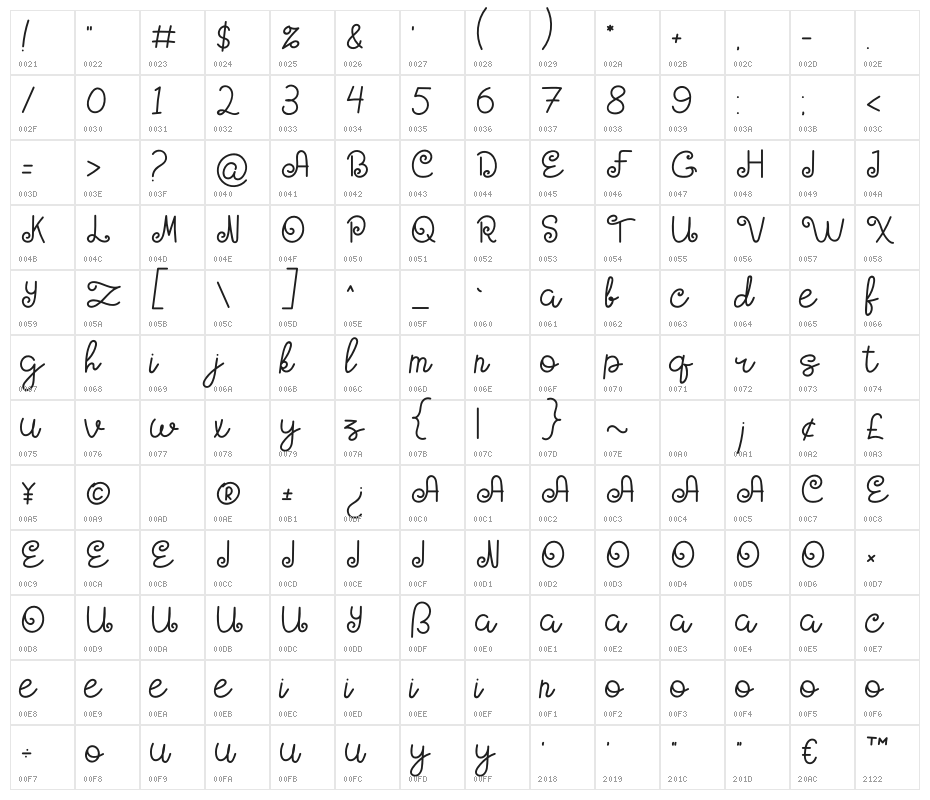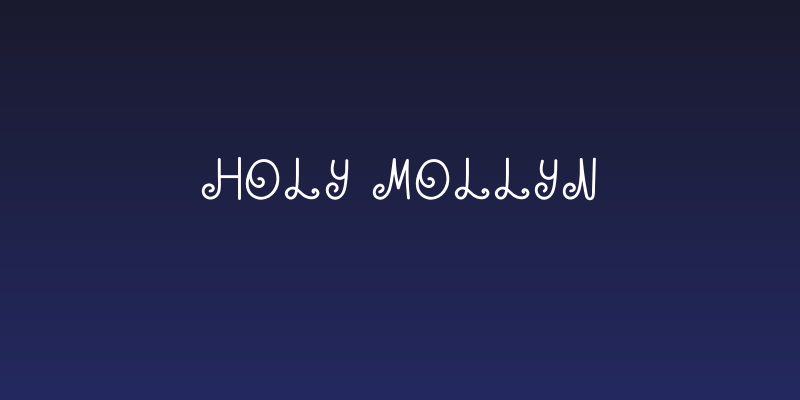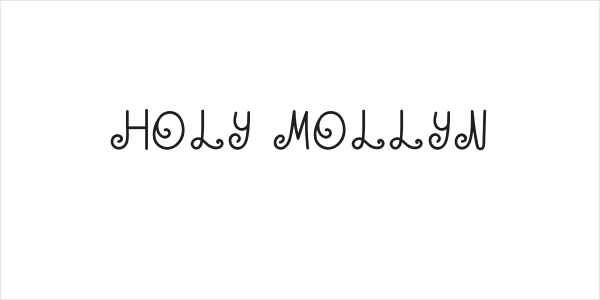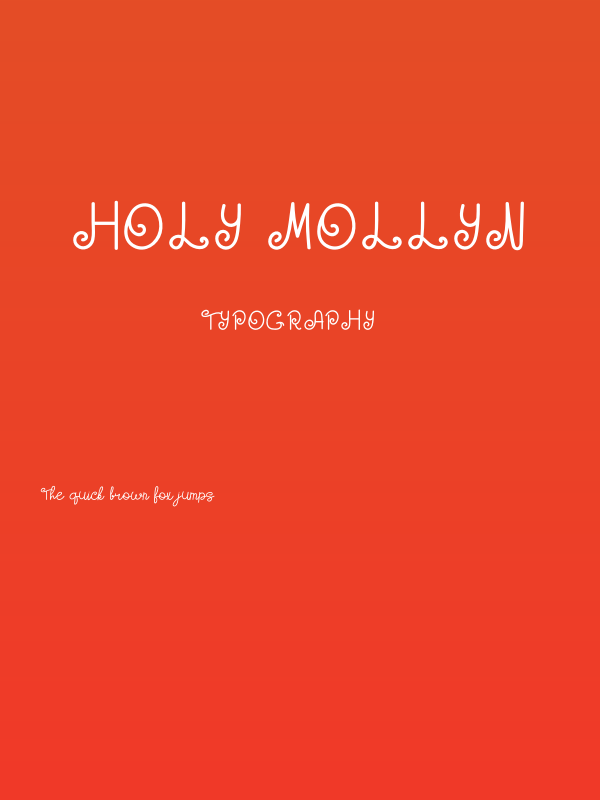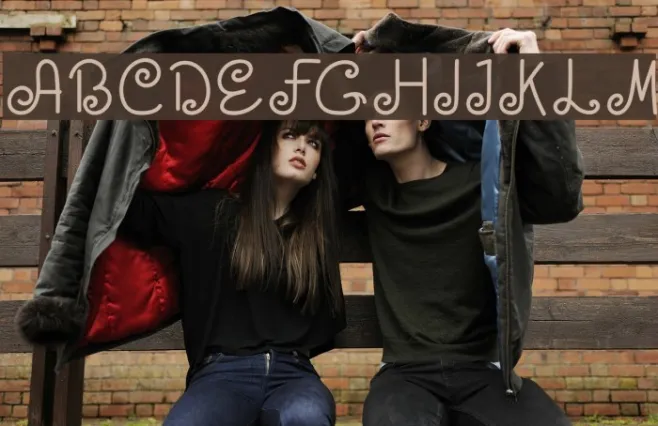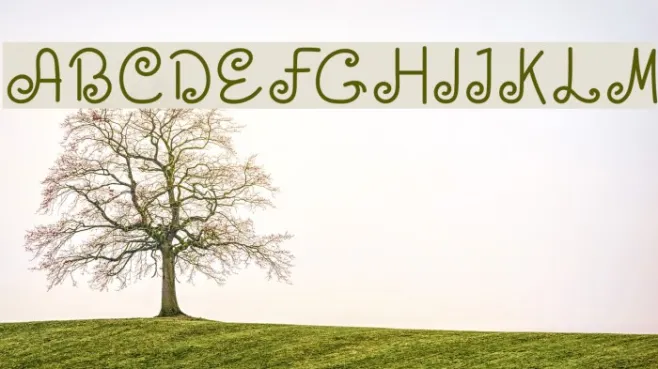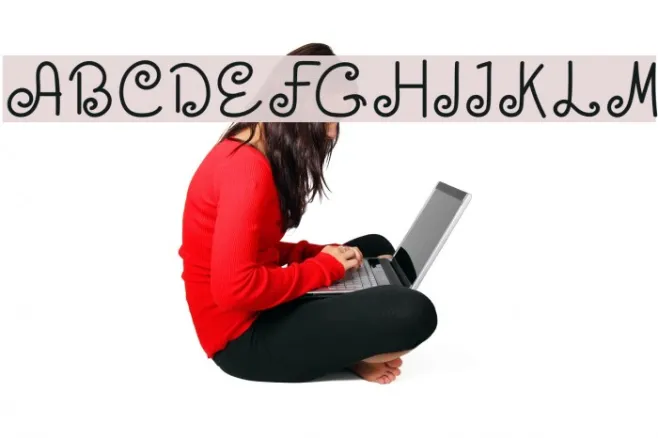
HOLY MOLLYN Font
HOLY MOLLYN Description
This font features a playful and whimsical design, characterized by its curly and looping strokes. The uppercase letters are bold and decorative, with unique curls and swirls that add a touch of elegance and fun. The lowercase letters maintain a consistent style, with smooth curves and a slightly informal script-like appearance. Numbers and special characters follow the same playful theme, making the font versatile for various creative projects. The overall design is eye-catching and suitable for projects that require a touch of personality and flair.
| Proposed Projects | Ideal for greeting cards, children's books, playful branding, and creative posters. |